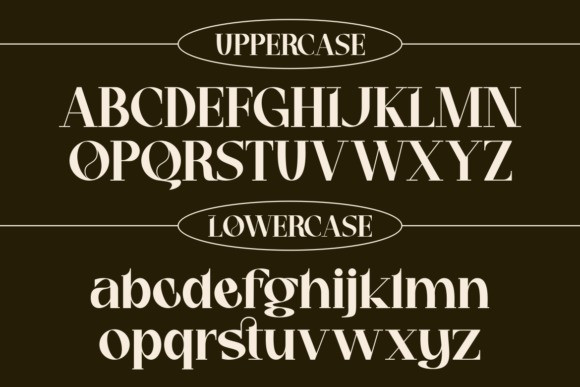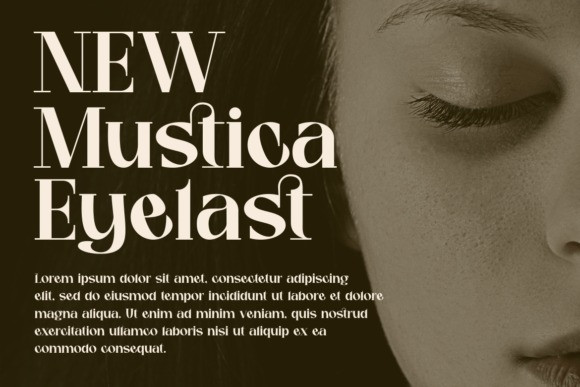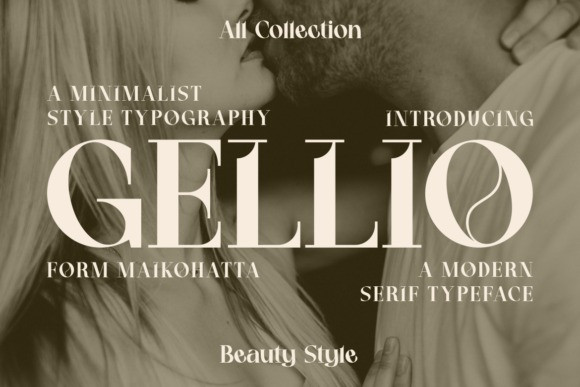
Gellio Font
Gellio Font – Beauty Serif Font – Modern Font is a bold and authentic display font. The font is suitable for any branding project like logo, template design, esport, and many more. outstanding in a wide range of contexts.